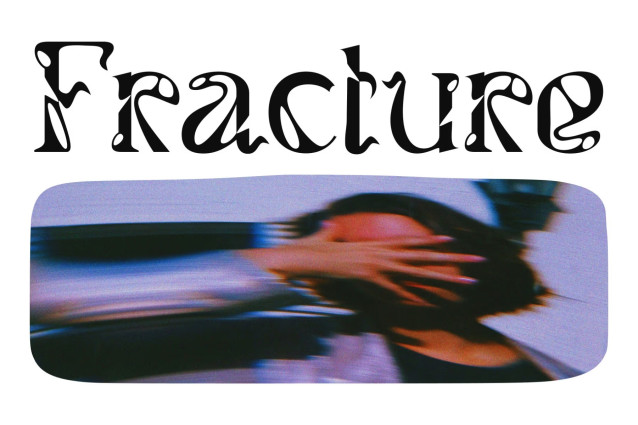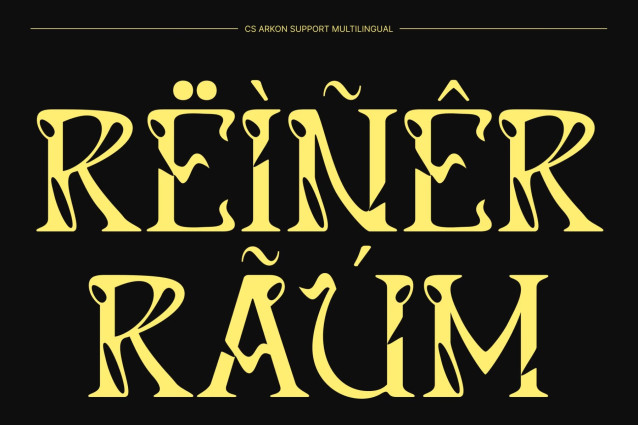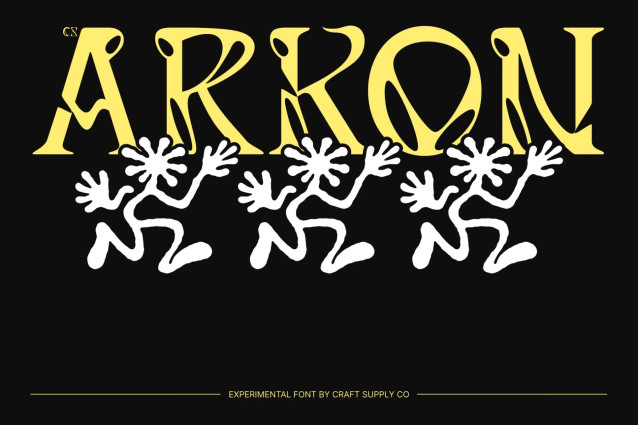
CS Arkon – Experimental Display Font
CS Arkon – Experimental Display Font with Melted Brutalist Energy
Experimental Display Font with Unique Character
This is an experimental display font designed to challenge traditional typography with bold creativity. Featuring unique characters and unconventional shapes, this typeface blends brutalist inspiration with fluid melted details to create a striking and unforgettable visual identity. It is crafted for designers who want typography that feels daring, artistic, and unapologetically modern.
Melted Details with Dynamic Curves
The defining feature of this font lies in its melted elements and expressive curves, which introduce movement and organic rhythm into every letterform. These flowing distortions create a dramatic contrast with its solid structure, producing a visually captivating balance between chaos and control. The result is typography that feels alive, energetic, and full of personality.
Brutalist Influence with Modern Expression
This font combines raw brutalist aesthetics with contemporary experimental design. Its bold forms and unconventional proportions bring a strong and edgy tone to any layout, making headlines feel powerful and artistic. This fusion of styles ensures the font stands out while maintaining readability and visual harmony.